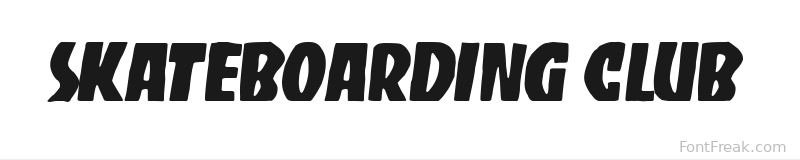
Skateboarding Club
About Skateboarding Club
The Skateboarding Club font, designed by woodcutter Manero, is a striking display typeface that effortlessly captures the spirit of skateboarding culture. This font is characterized by its bold, blocky strokes and a playful yet rugged aesthetic that reflects the energy of urban sports. The stroke weight is consistent, providing a solid foundation for impactful headlines or branding, while the slight variations in character shapes add a sense of movement and excitement. The spacing is well-balanced, ensuring clarity and readability, making it suitable for various applications.
This font shines in a variety of creative contexts. It's ideal for skate shop signage, where it can draw attention with its dynamic visual appeal. Additionally, it works wonderfully for designing posters and flyers for skateboarding events, adding a vibrant touch that resonates with the target audience. The Skateboarding Club font is also perfect for apparel designs, such as t-shirts or hoodies, where it can evoke a sense of community and passion. Furthermore, it can be effectively utilized in social media graphics aimed at engaging younger audiences who are passionate about skateboarding and alternative sports.
Targeting graphic designers, small business owners, and content creators who want to incorporate a bold and youthful aesthetic into their projects, this font is a versatile choice. The Skateboarding Club font free download provides an accessible opportunity for creatives to enhance their designs with a unique typeface that reflects both style and attitude.
What truly sets the Skateboarding Club font apart is its ability to convey a sense of belonging and excitement. It encapsulates a lifestyle and a community, making it not just a font but a statement piece for anyone looking to bring the spirit of skateboarding into their work.